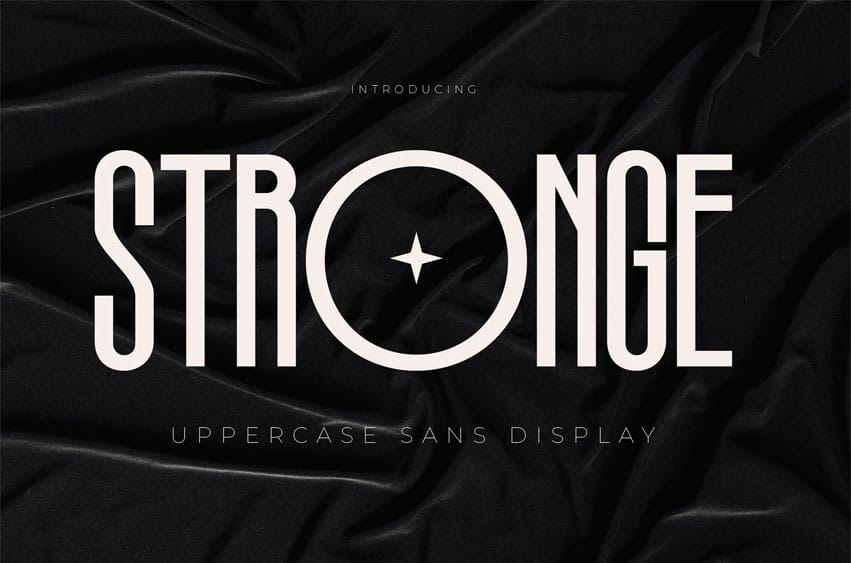
Stronge Font is modern and unique in style, perfect for adding a unique color to your projects. This font is also very suitable for making posters and your music albums to get a more attractive visual impression.